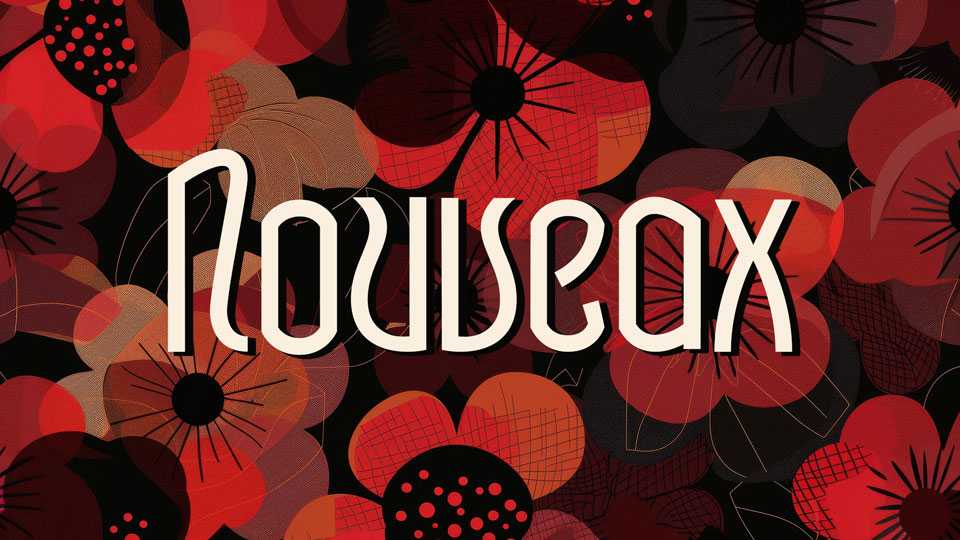
Download Nouveaux font, a beautiful Art Nouveau styled typeface that brings the timeless elegance and intricate beauty of the early 20th century to your designs.
Designer: Rob Hindley